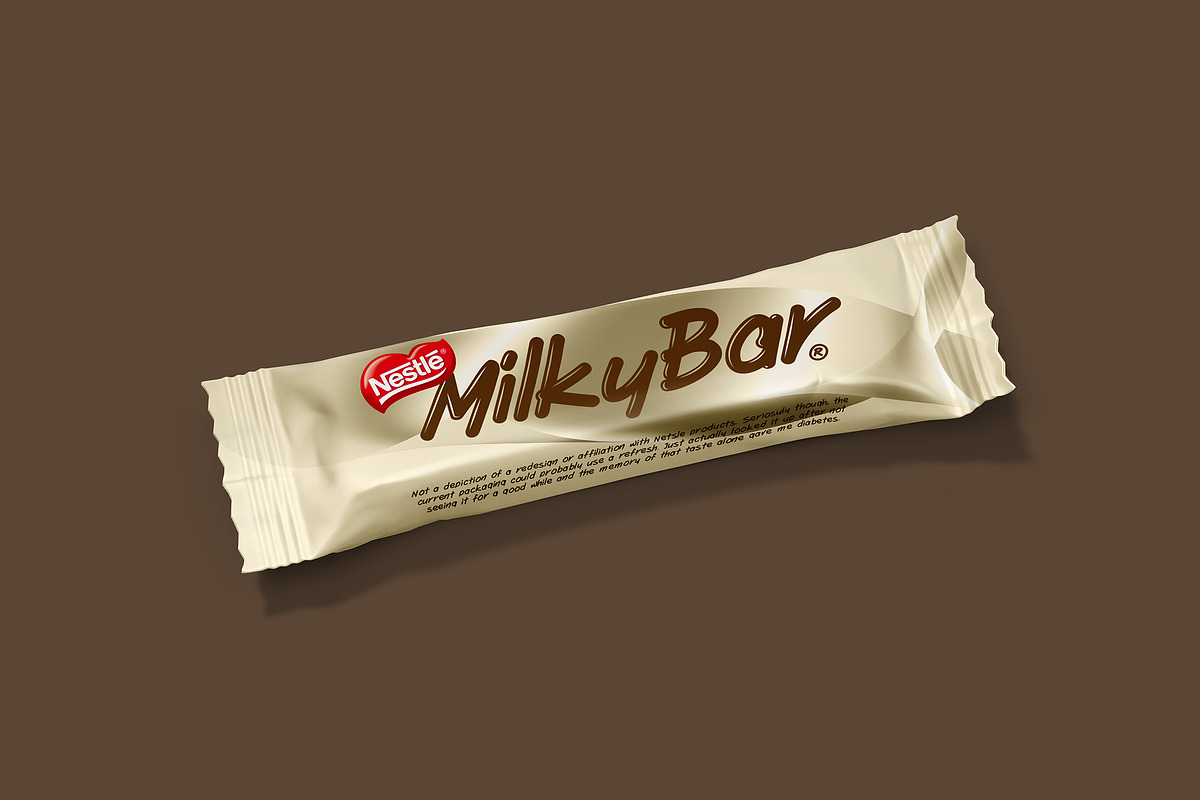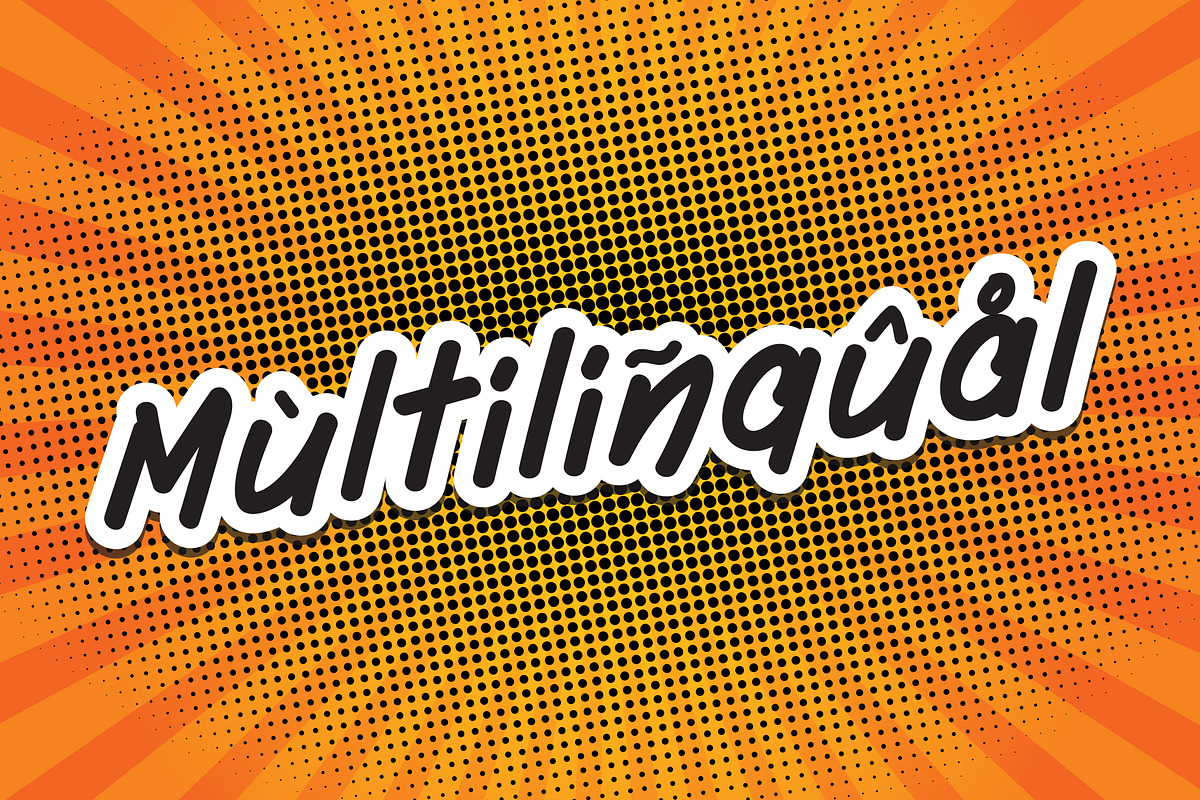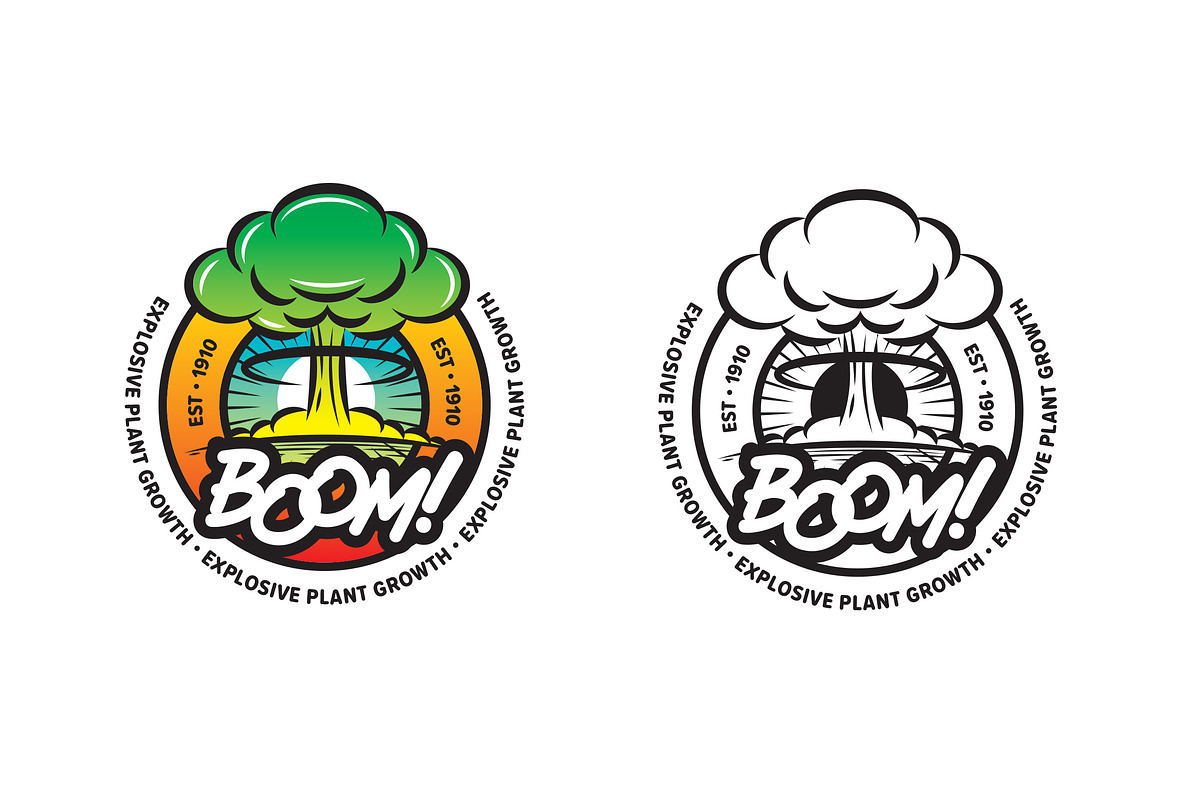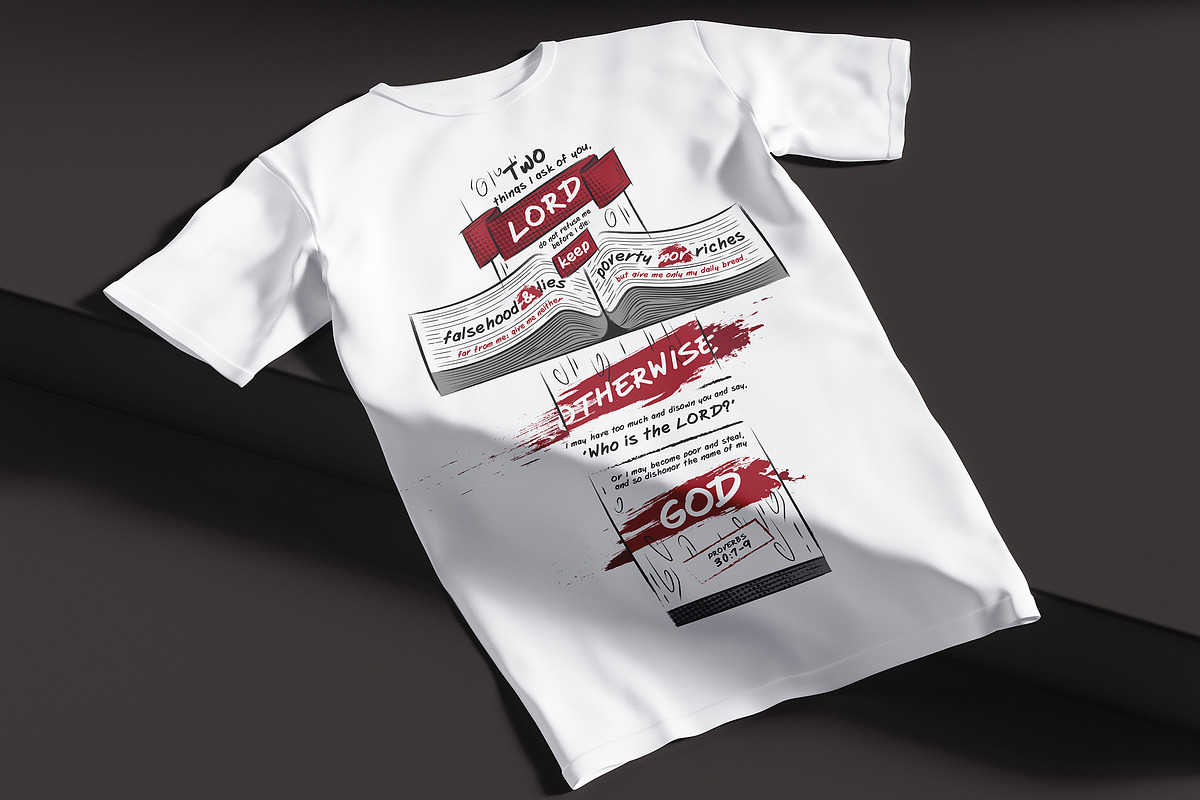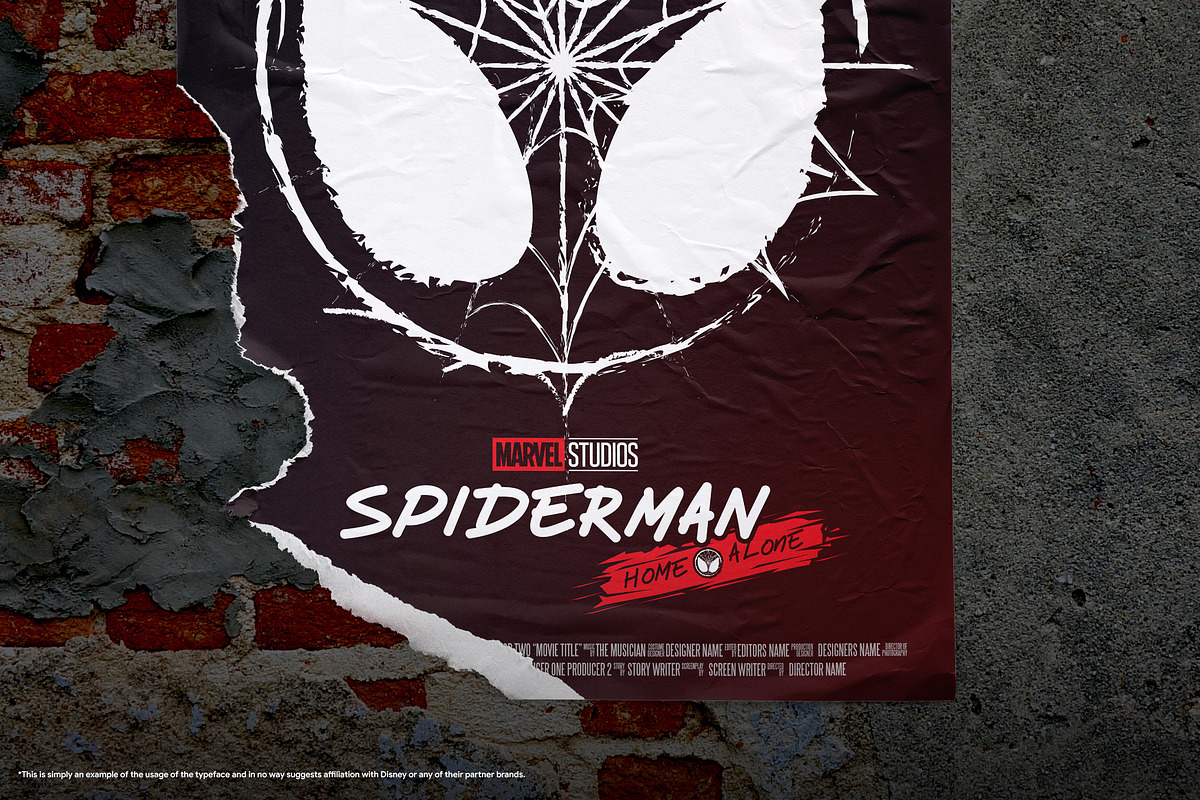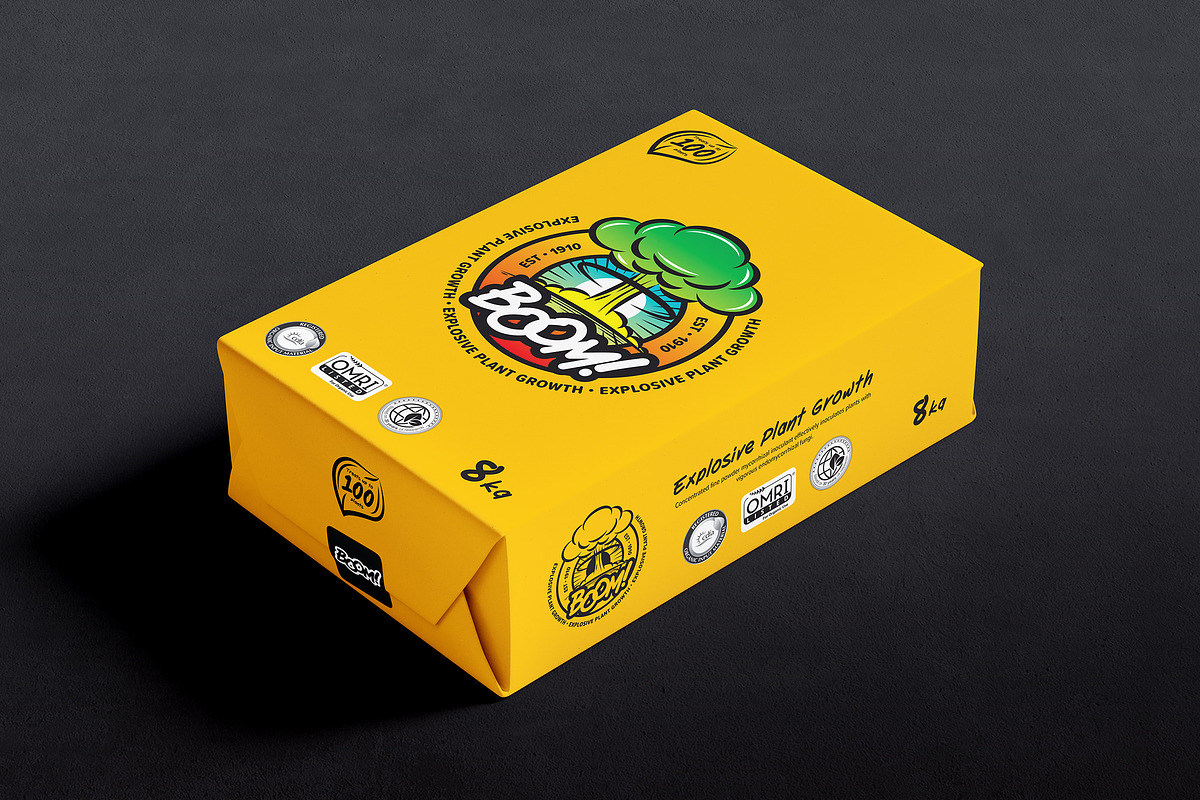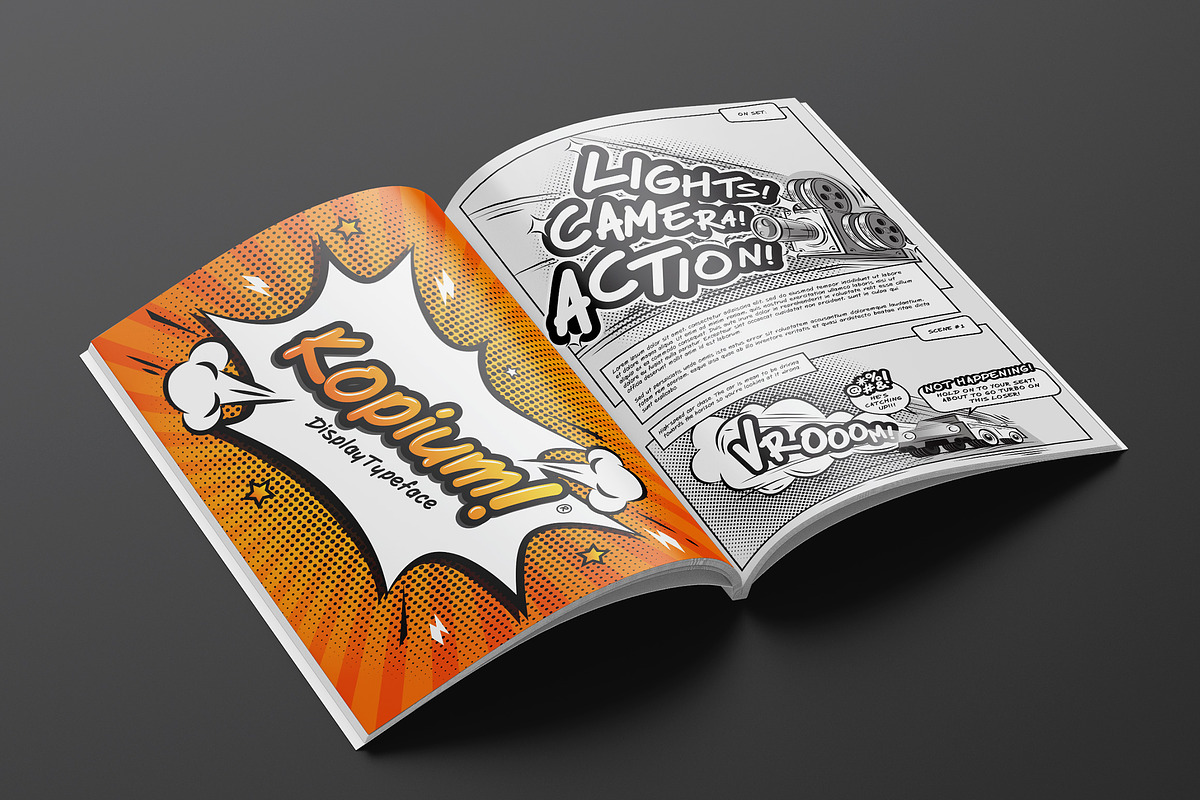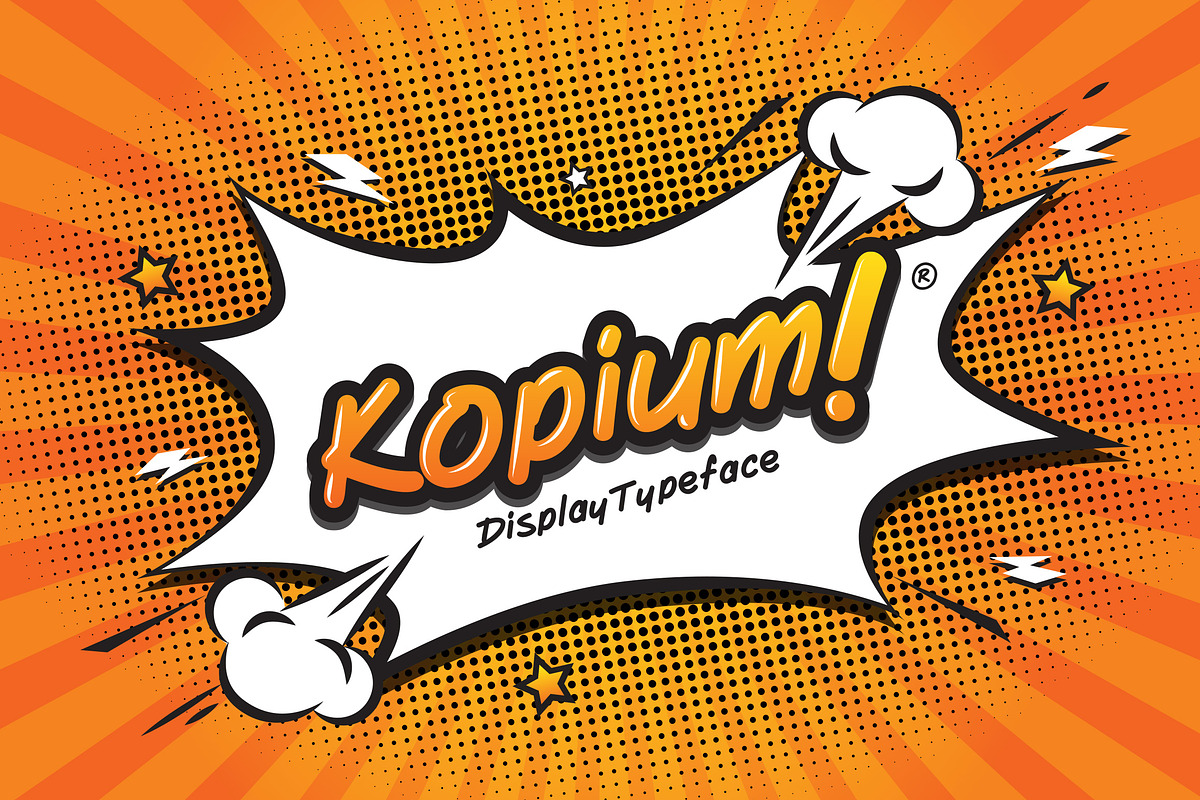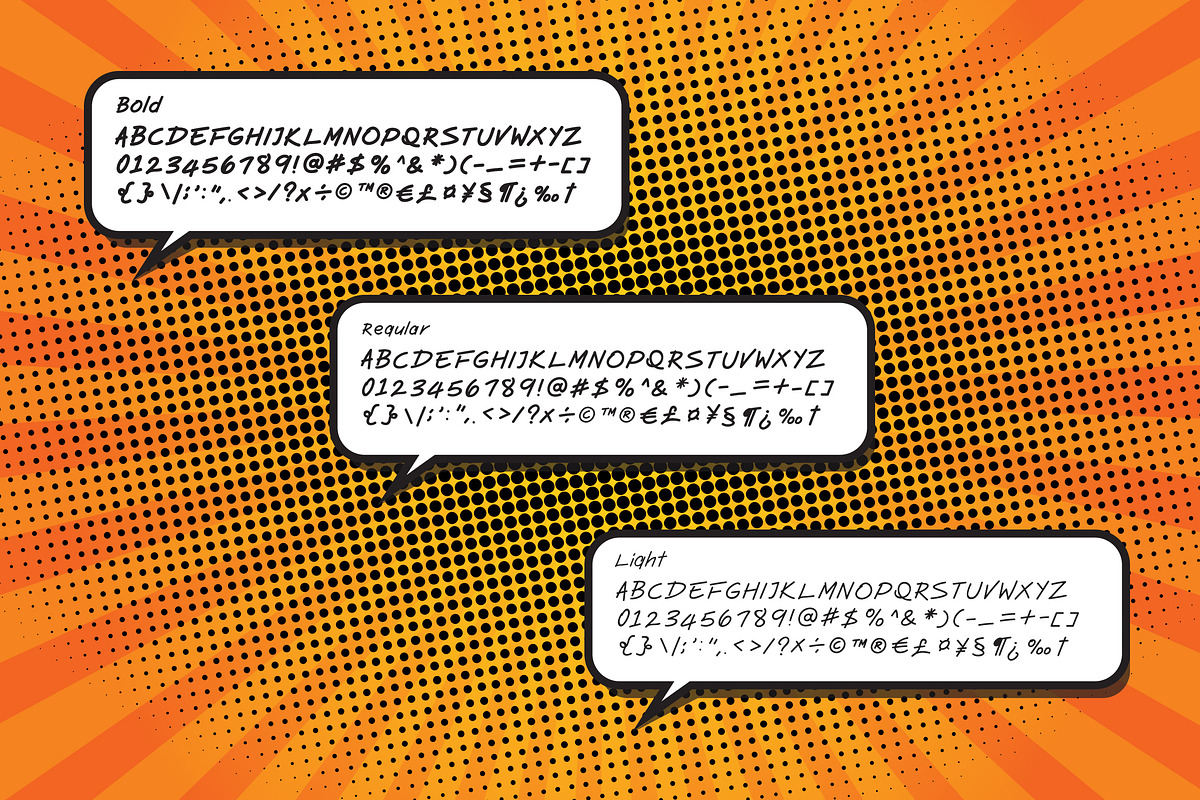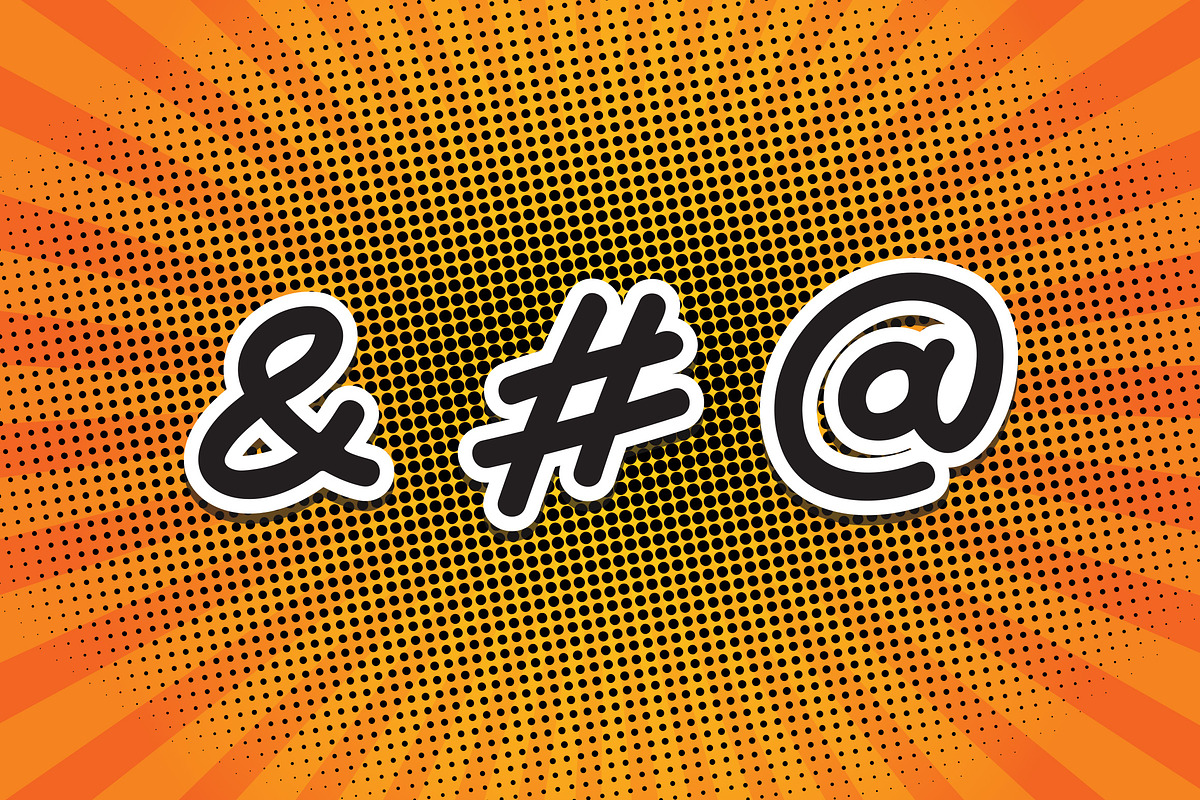
Kopium
A versatile display typeface suitable for headlines, logo design, poster designs, packaging design and apparel design. Kopium comes in three default styles Light, Regular and Bold with support for multiple languages.